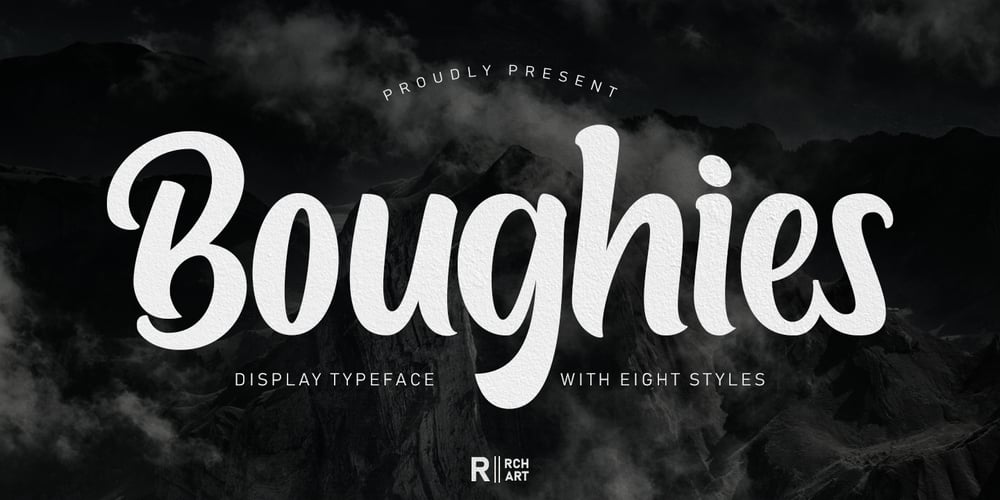
Boughies
Boughies font
Boughies Font Family was designed by Rochadi Sudarma and published by Rochart. Boughies contains 8 styles and family package options. Boughies is modern bold display font. Boughies is great for branding, logo design, lettering, clothing, posters, magazine and other design project and also provides some Stylistic Alternates, Ligatures, Multilingual support and already PUA encoded.